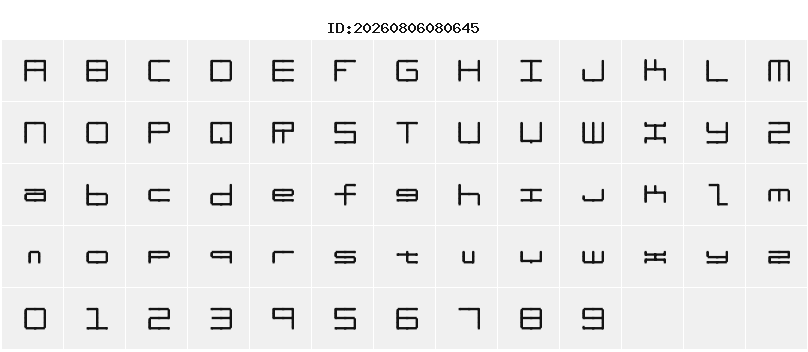
Oscilloscope Preview
• Font Name: Oscilloscope
• Full Font Name: Oscilloscope 4
About Oscilloscope.ttf
Oscilloscope.ttf is a modern, elegant sans-serif font designed for ultimate readability and visual harmony. Perfect for branding, headlines, web design, and print materials.